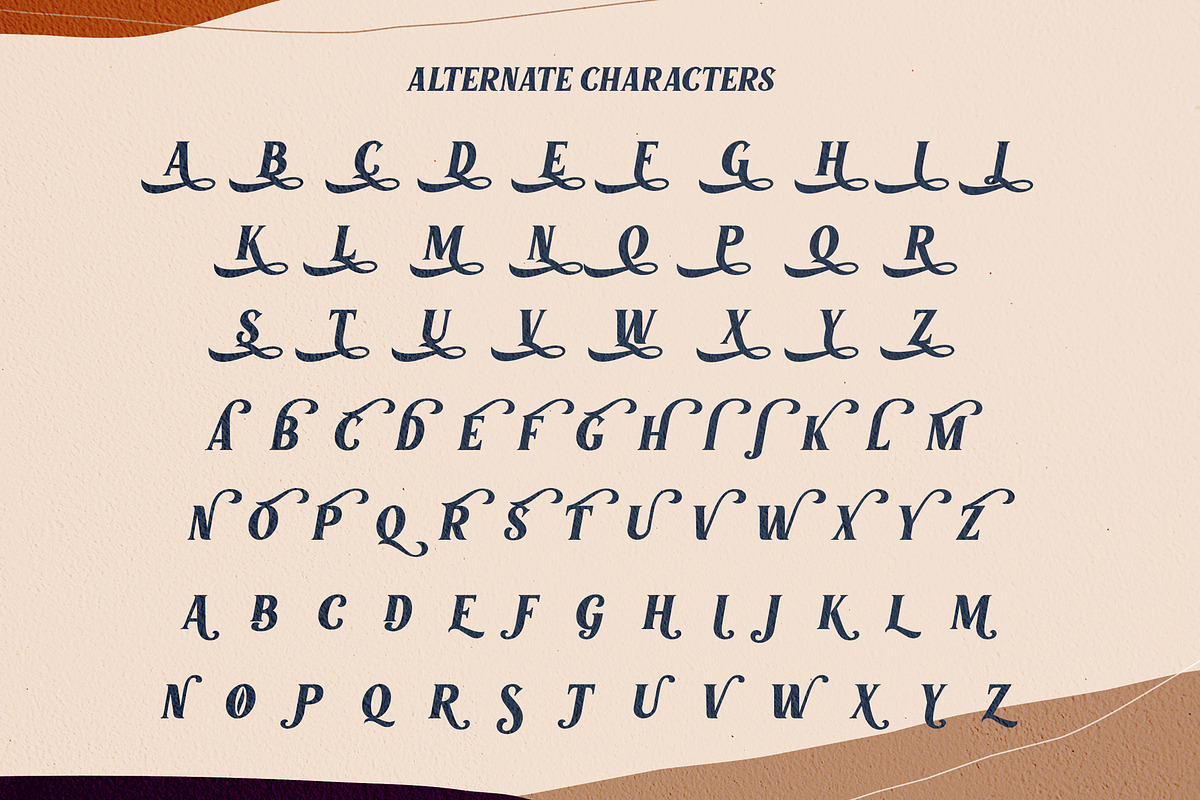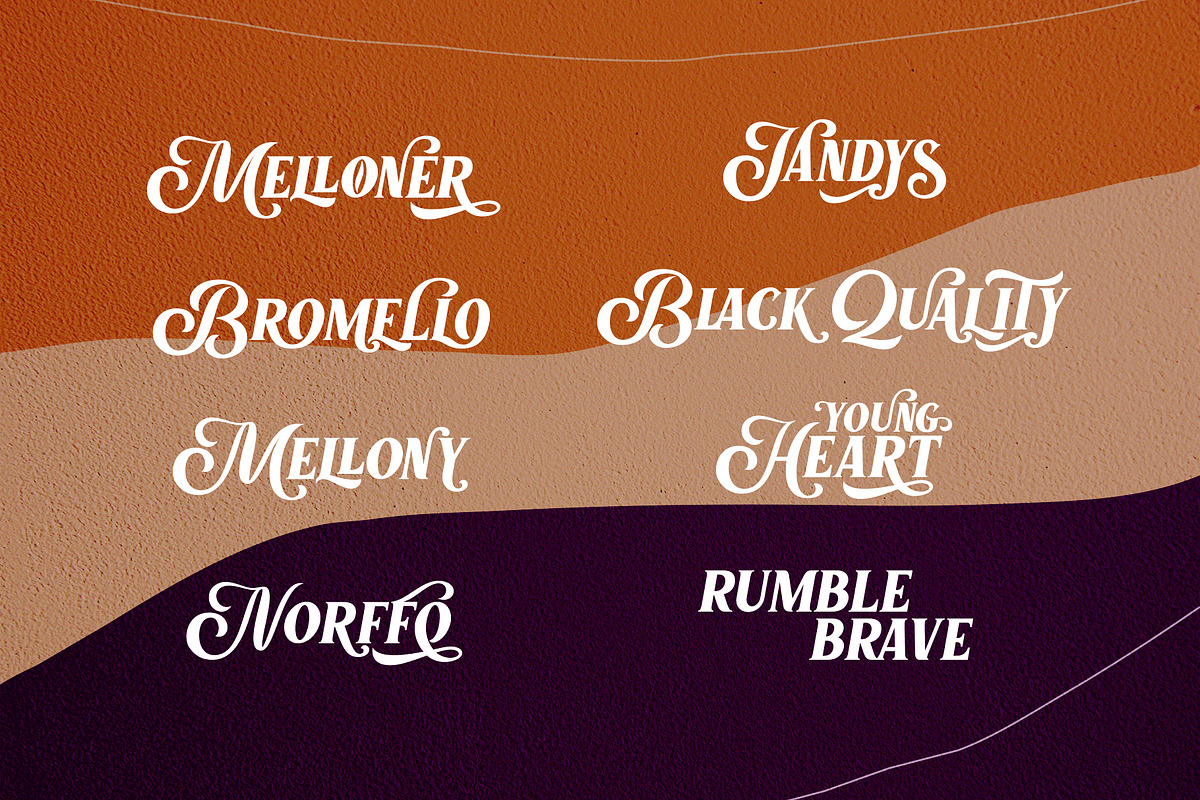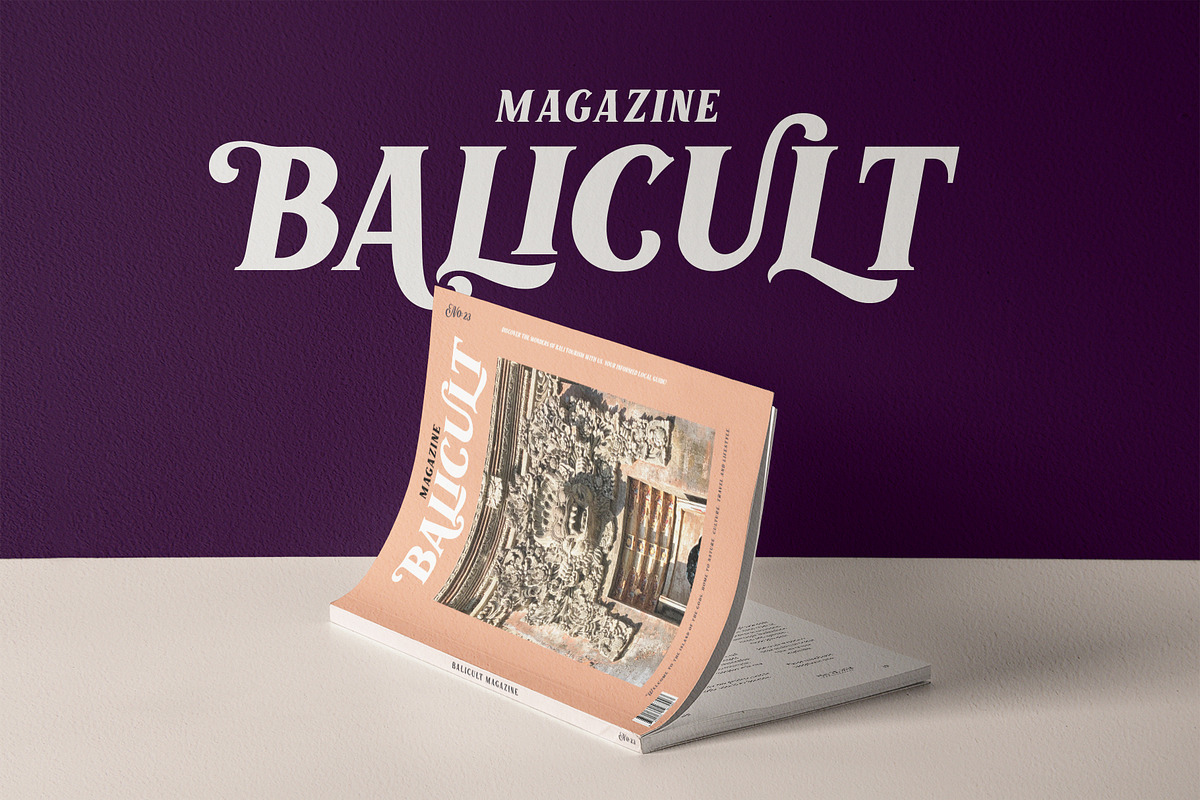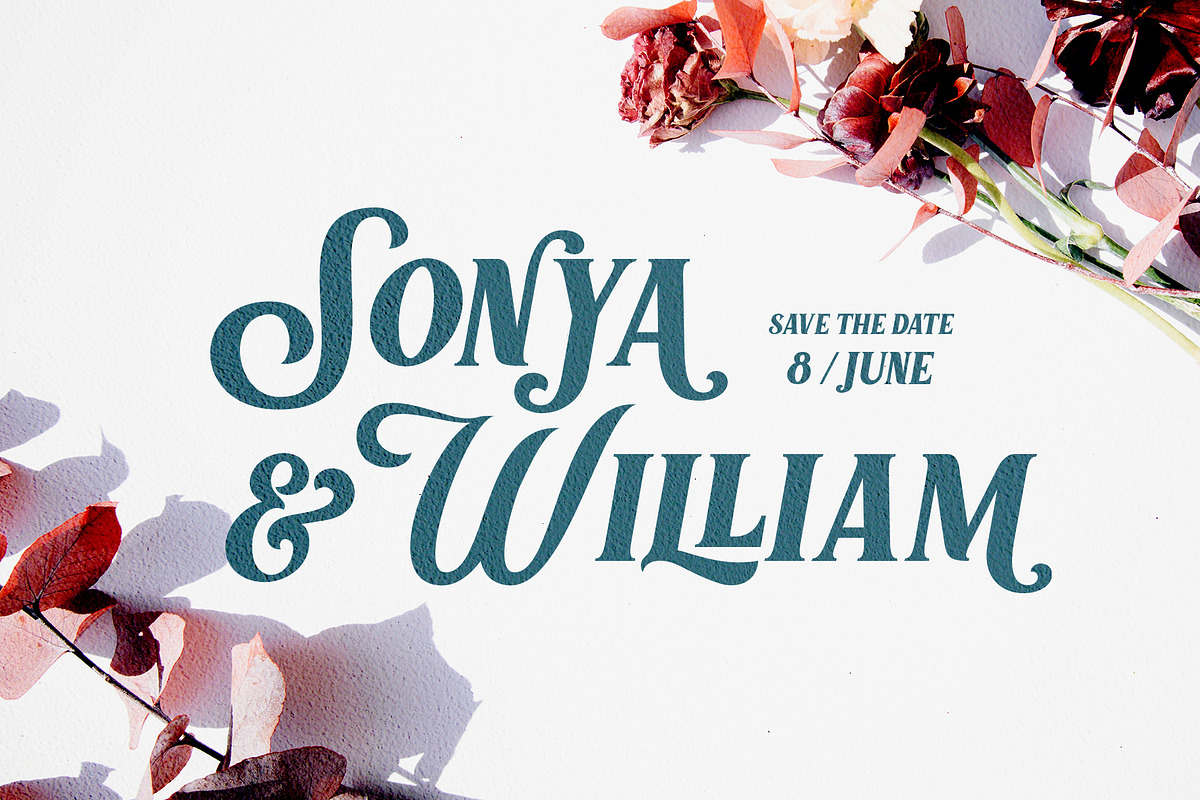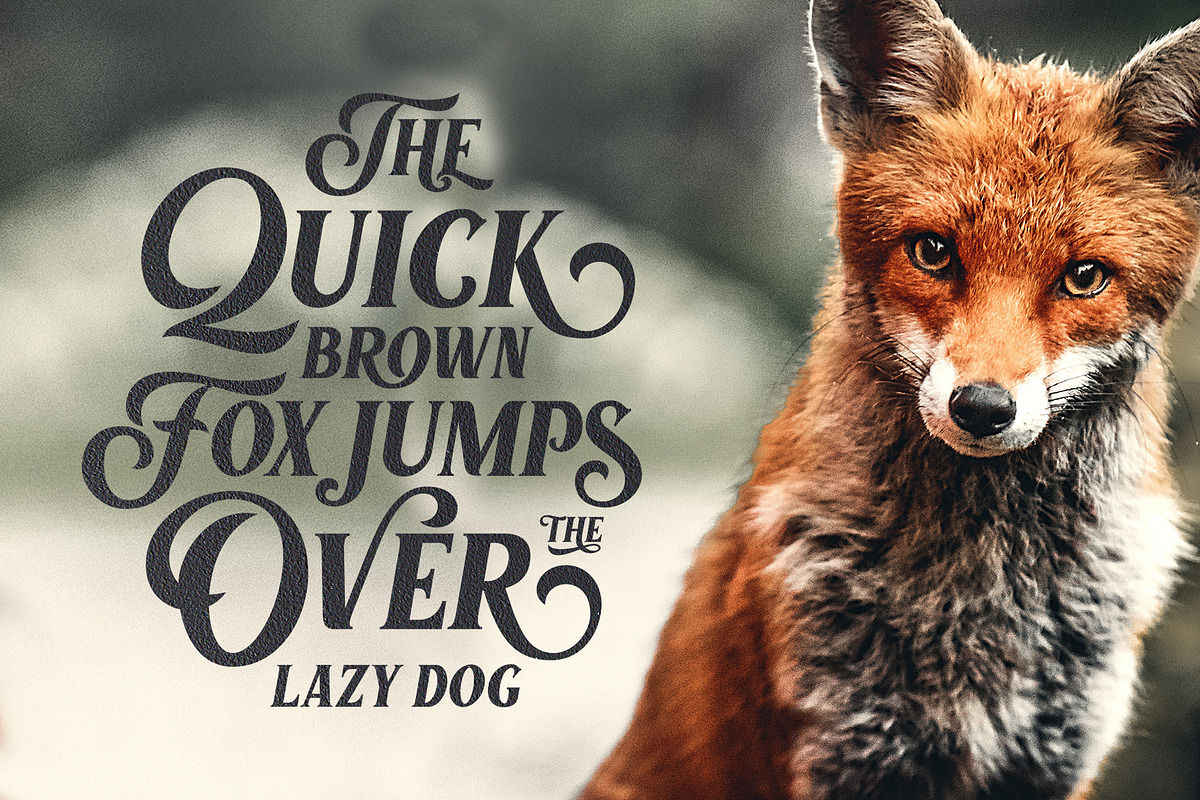
Marons font
Introducing the Marons font, this is my first font in 2020, finally being able to release a font after about 2 months. Yes, I created this Marons font from the initial sketch to the digital process and until it was released it took less than 2 months after I launched the Black Quality font
This Maron font is an elegant style that I combine from scripts and serif fonts, thus creating a unique and bold impression. In addition to the font Marons also has an additional alternate glyph, so this font can create logo designs, header text, t-shirt designs, YouTube cover text, wedding designs, and others with many variations of swash options.
Marons fonts are indeed worthy of being a collection of fonts in early 2020